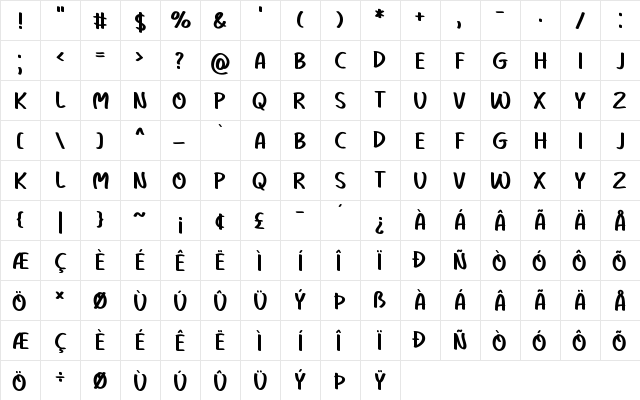
Enjoy Summer Regular
Design Context for Enjoy Summer Typeface
Enjoy Summer is a composed and adaptable typeface that performs quietly and consistently across a wide range of design contexts.
Pro Tip: Pair Enjoy Summer with a font of contrasting weight or personality to build a more expressive typographic hierarchy.